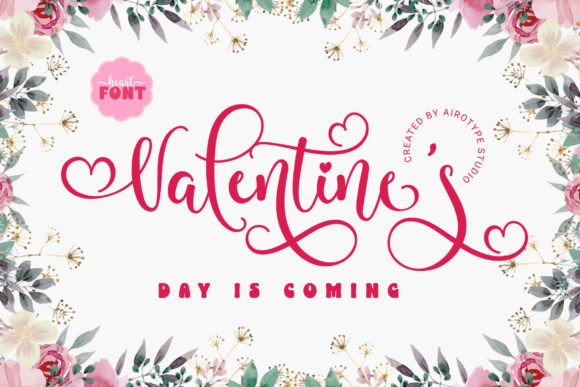
Valentines Font
Valentines is a bouncy script font. Beautiful, girly, and chic – Valentines can be used for Valentine’s Day designs, wedding invitations, farmhouse designs, or anything that requires a lovely, romantic touch.